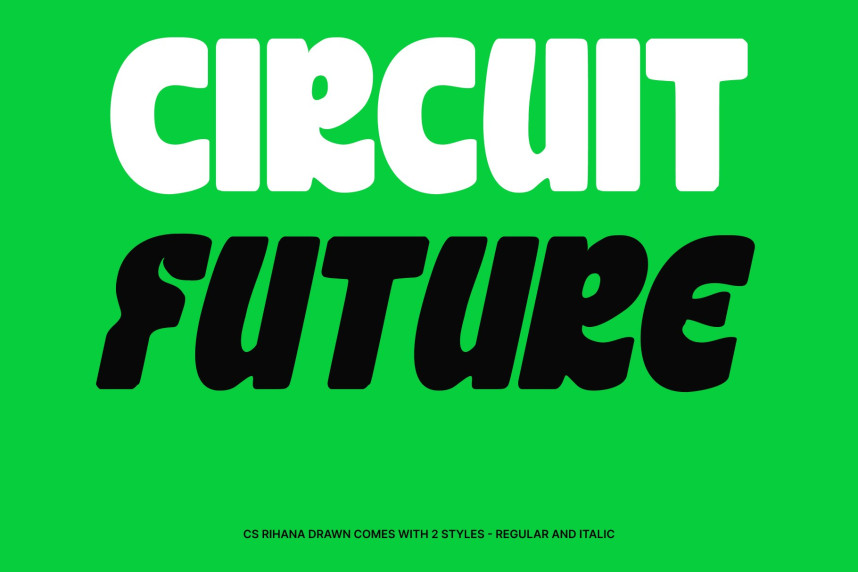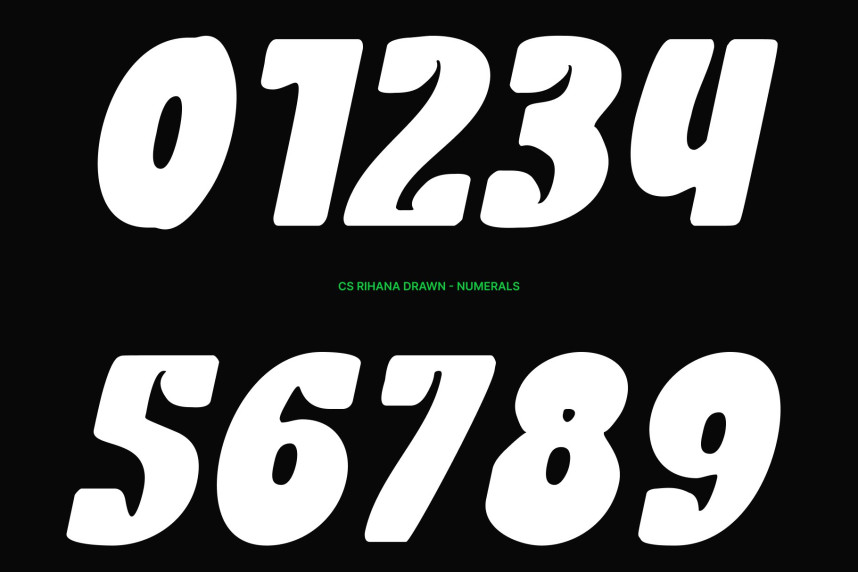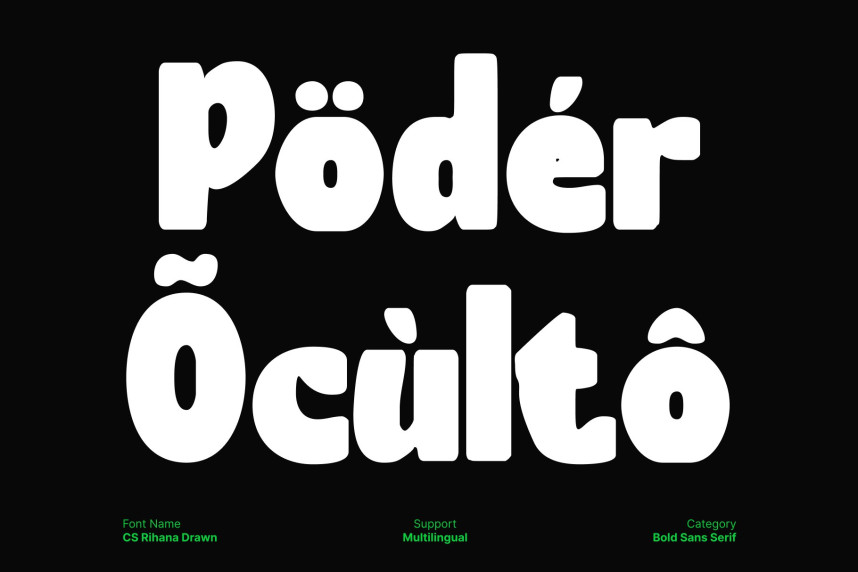
CS Rihana Drawn Font
CS Rihana Drawn Font – Bold Modern Display Font with Strong Character Bold, Modern, and Impactful. This is a bold modern display font designed to command attention. Its thick, confident letterforms and contemporary styling give any text a powerful presence, making it perfect for projects that require clarity, impact, and strong visual hierarchy.